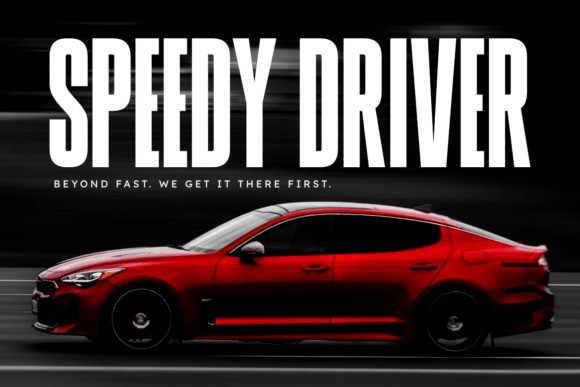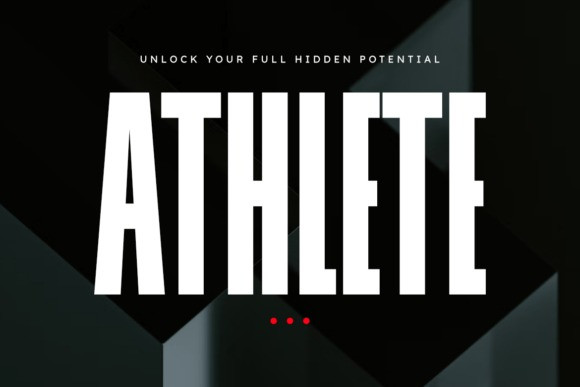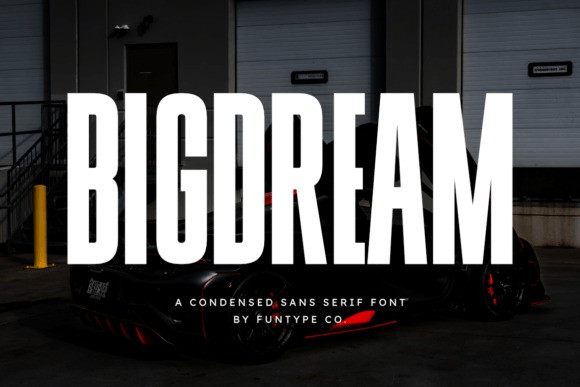
Bigdream Font
Bigdream Font is a powerful, elegant condensed sans serif display font designed to convey ambition, strength, and premium quality. Its tall, streamlined form and clean lines create a visually striking presence, perfect for high-impact titles, automotive branding, luxury goods, fashion editorials, and modern poster design. Bigdream is a highly versatile and professional typeface that excels in any setting where a bold yet refined statement is required. This font is ideal for designers looking for a serious, contemporary aesthetic with great readability in display sizes.